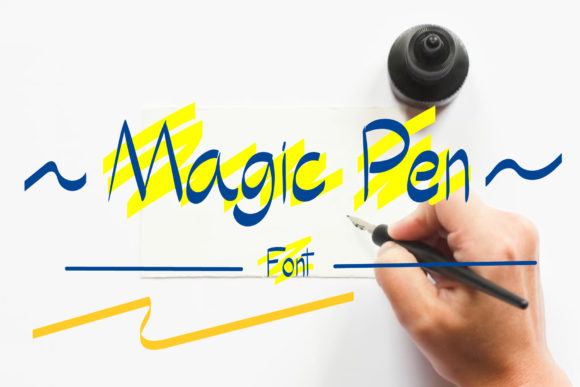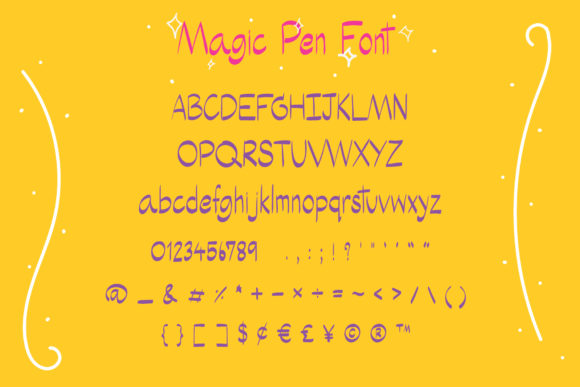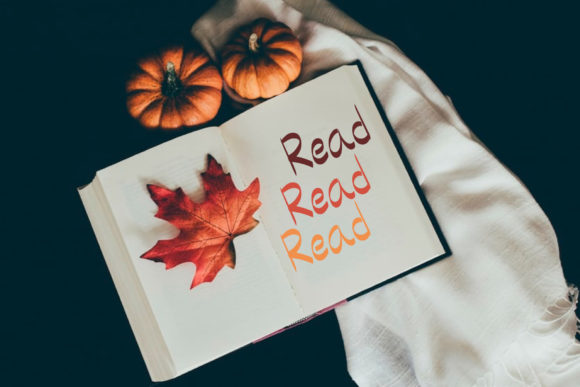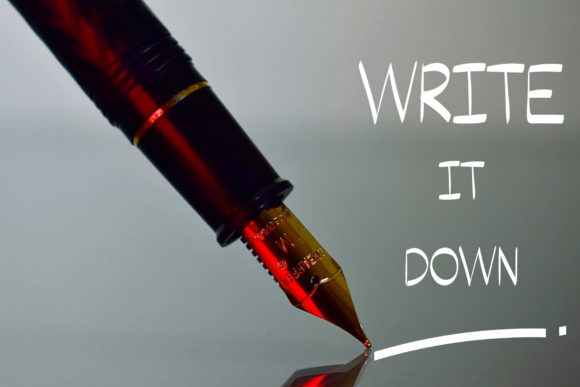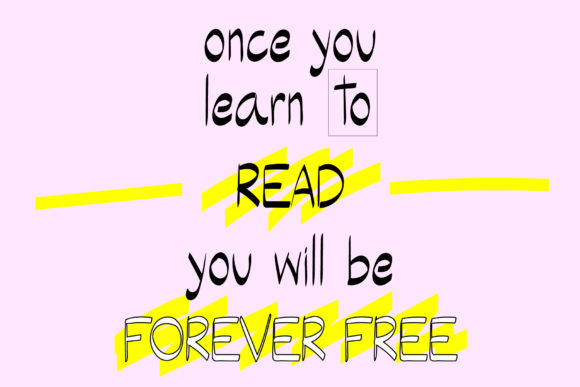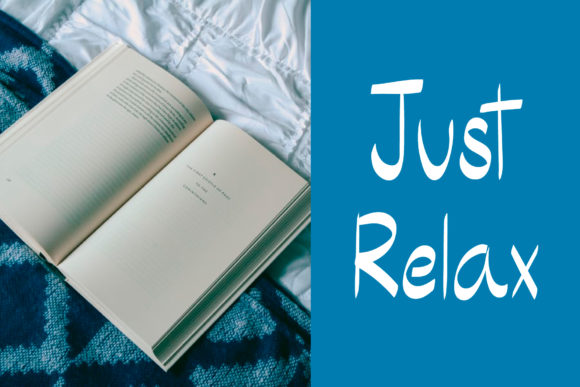
Magic Pen Font
About Magic Pen Font
Magic Pen is a cute and casual handwritten font with an incredibly friendly feel. Its casual charm makes it appear wonderfully down-to-earth, readable and, ultimately, incredibly versatile.